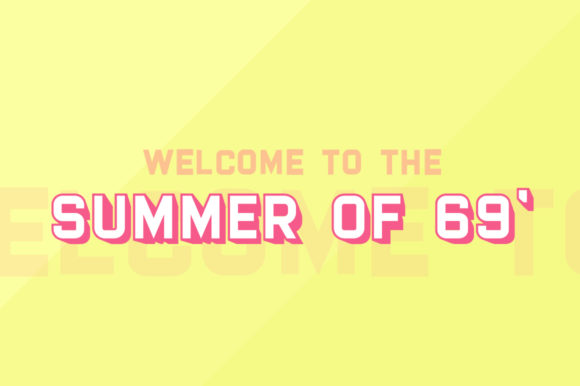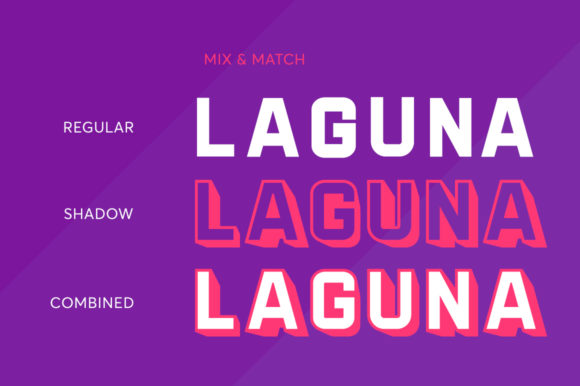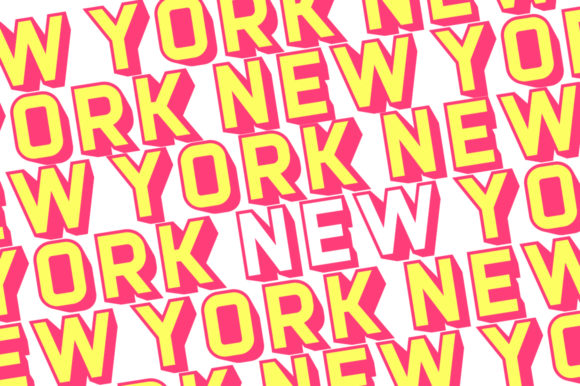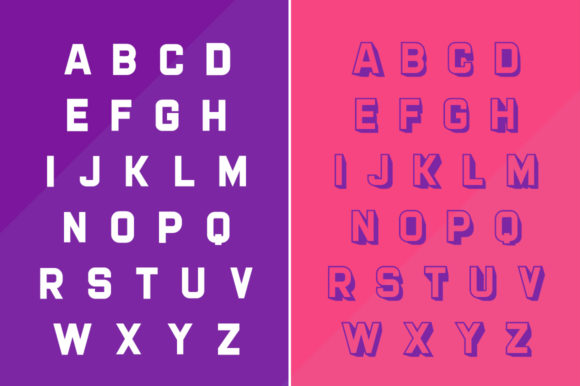
Introduction to Laguna Duo Font
As a designer, there’s nothing quite like the thrill of stumbling upon a game-changing font that elevates your creative project to the next level. For me, that moment came when I discovered the stunning Laguna Duo Font. Its unique blend of modern elegance and sophistication is a breath of fresh air in the world of typography.
Whether you’re working on a high-impact campaign or a personal design project, the Laguna Duo Font is a valuable addition to your design resource toolkit. Its versatility shines through in its two versions: a regular font and a shadow version that adds depth and dimension. With its transparent background, you can easily experiment with contrasting colors to make your design truly pop.
Ready to take your creative projects to new heights? Let’s dive into the world of Laguna Duo Font and explore its many possibilities.
Key Features of Laguna Duo Font
- Unique, modern design with a touch of elegance, perfect for creative projects and professional designs.
Honest Review: Laguna Duo Font
I recently stumbled upon the Laguna Duo Font while searching for a unique design resource for my creative project. I was immediately drawn to its elegant and sophisticated design, making it perfect for a variety of applications.
Here are some of the things that I like about the Laguna Duo Font: ✨
- High quality design: The font has a crisp and clean appearance, making it ideal for digital and print-based projects.
- Limited character set: The font only includes a limited set of characters, which may not be suitable for projects that require a full character set.
- No bold or italic styles: The font only comes in regular weight, which may not be enough for some design applications.
Overall, I’m impressed with the Laguna Duo Font. While it may not be perfect, its elegant design and high quality make it a great addition to any design resource library. I would definitely consider using it again for future creative projects.
The Laguna Duo Font is ideal for use in graphic design, digital art, and creative writing. It can be used in a variety of design projects, including business cards, brochures, and social media graphics. With its high-quality design and transparent background, the Laguna Duo Font is a valuable design resource for any creative project.